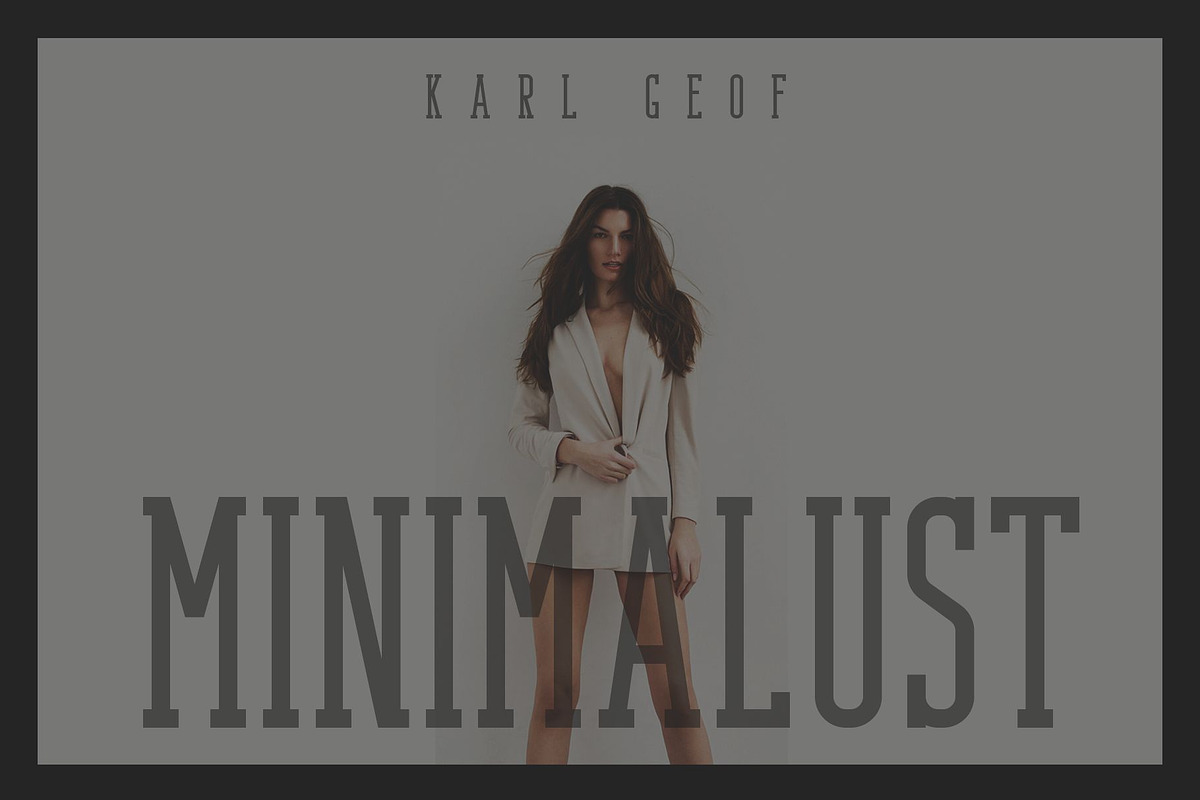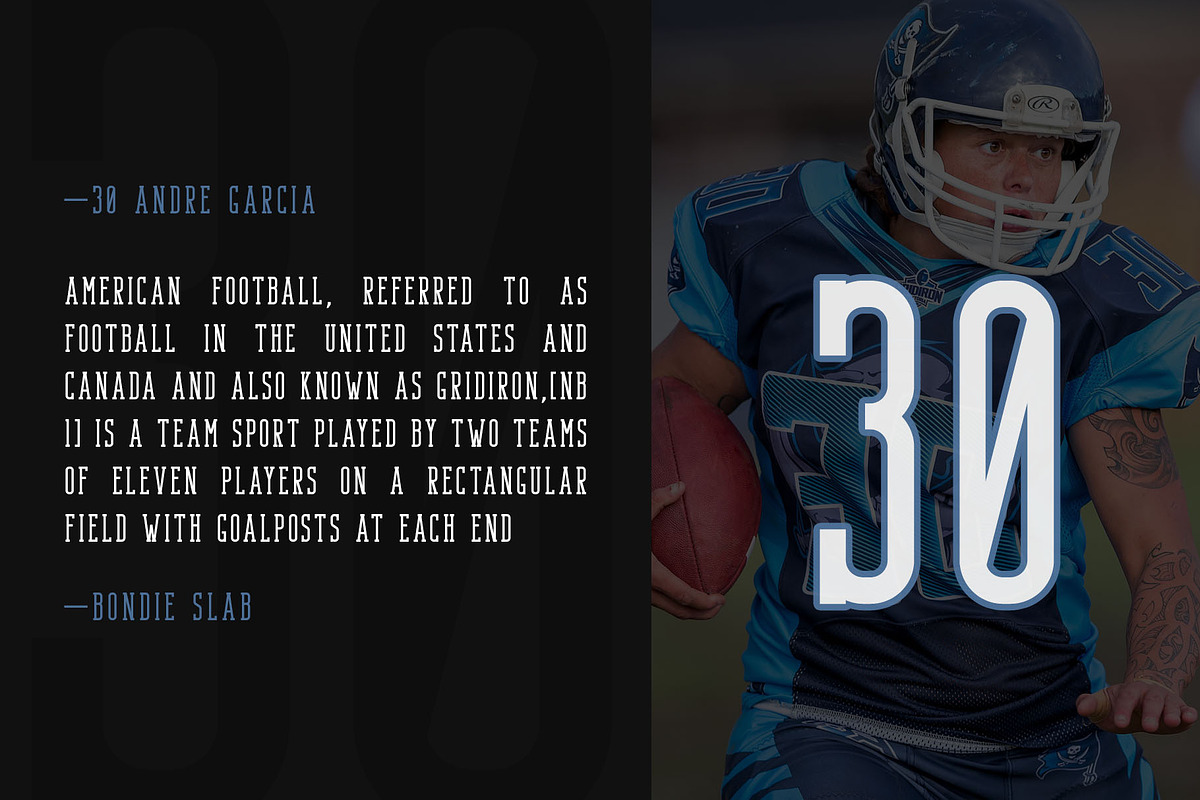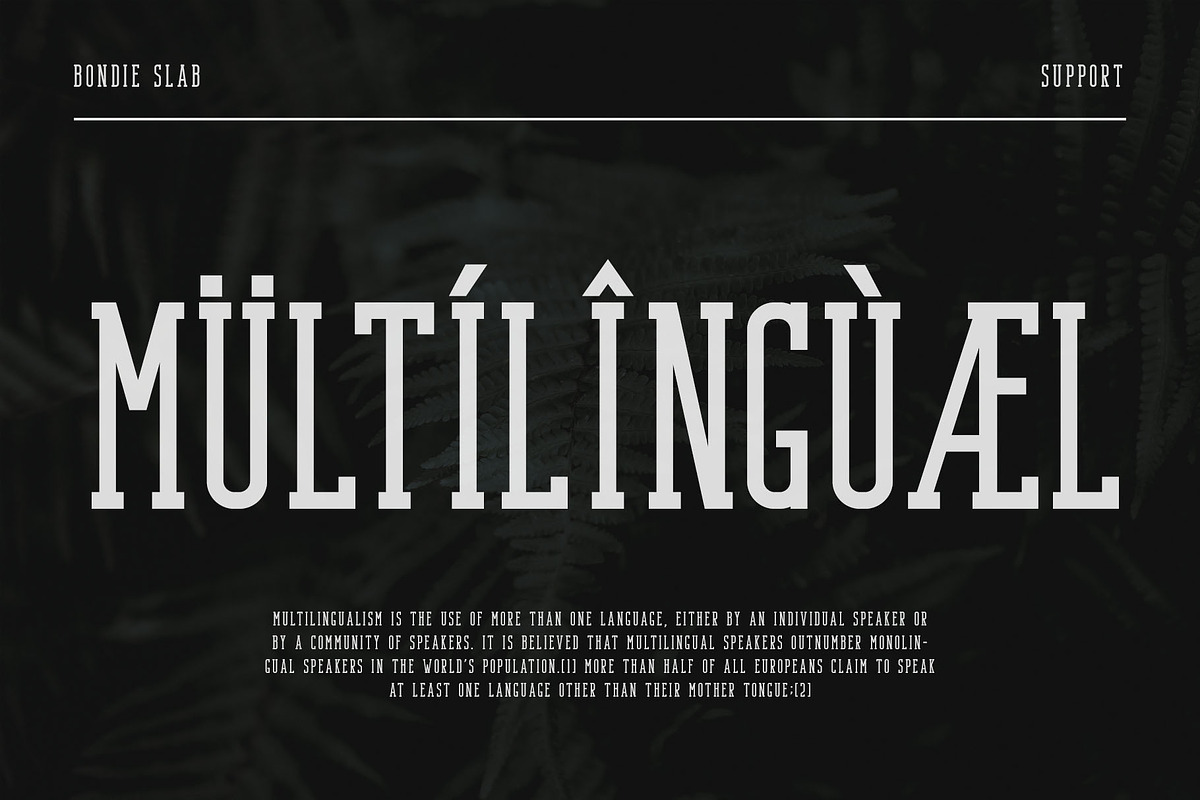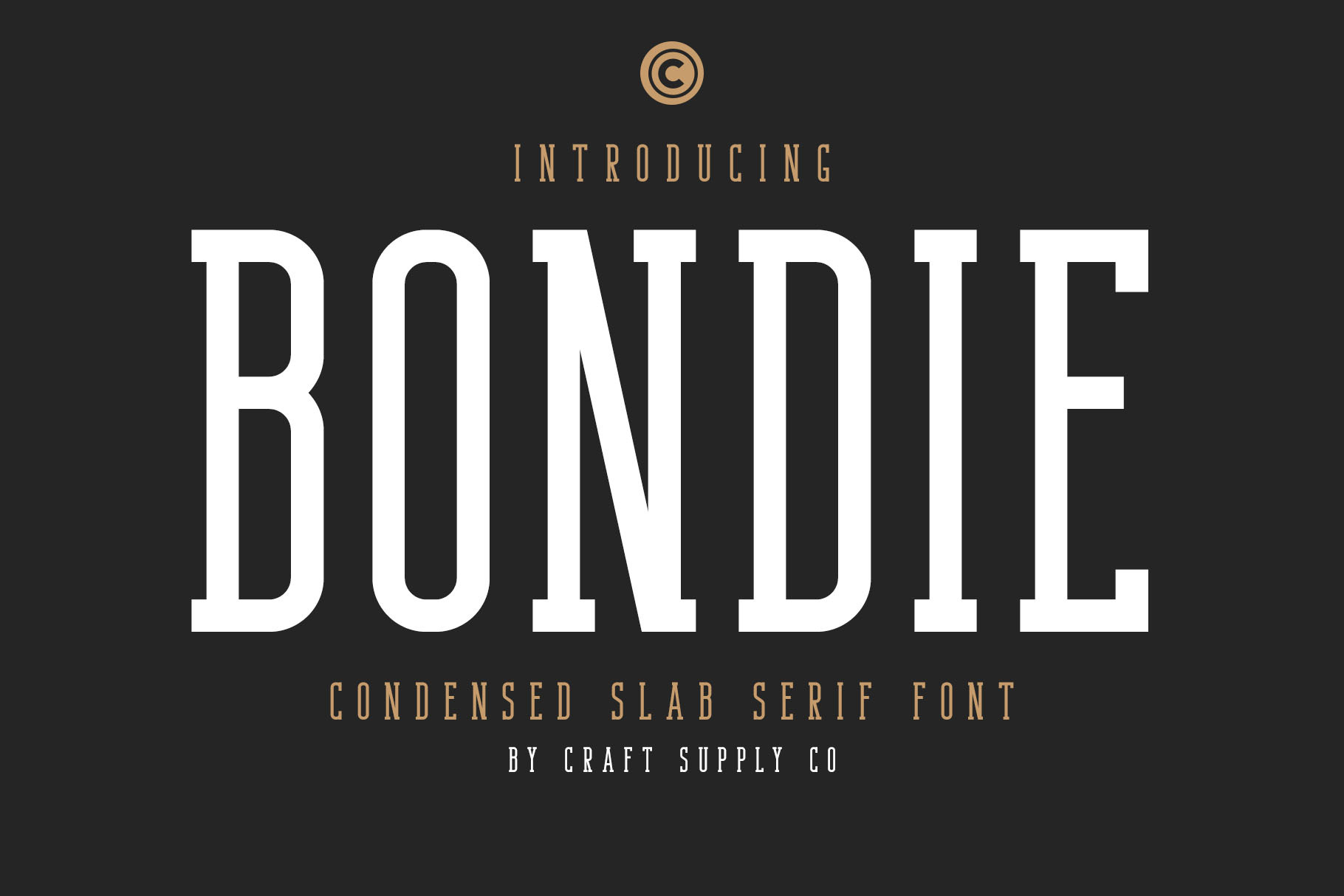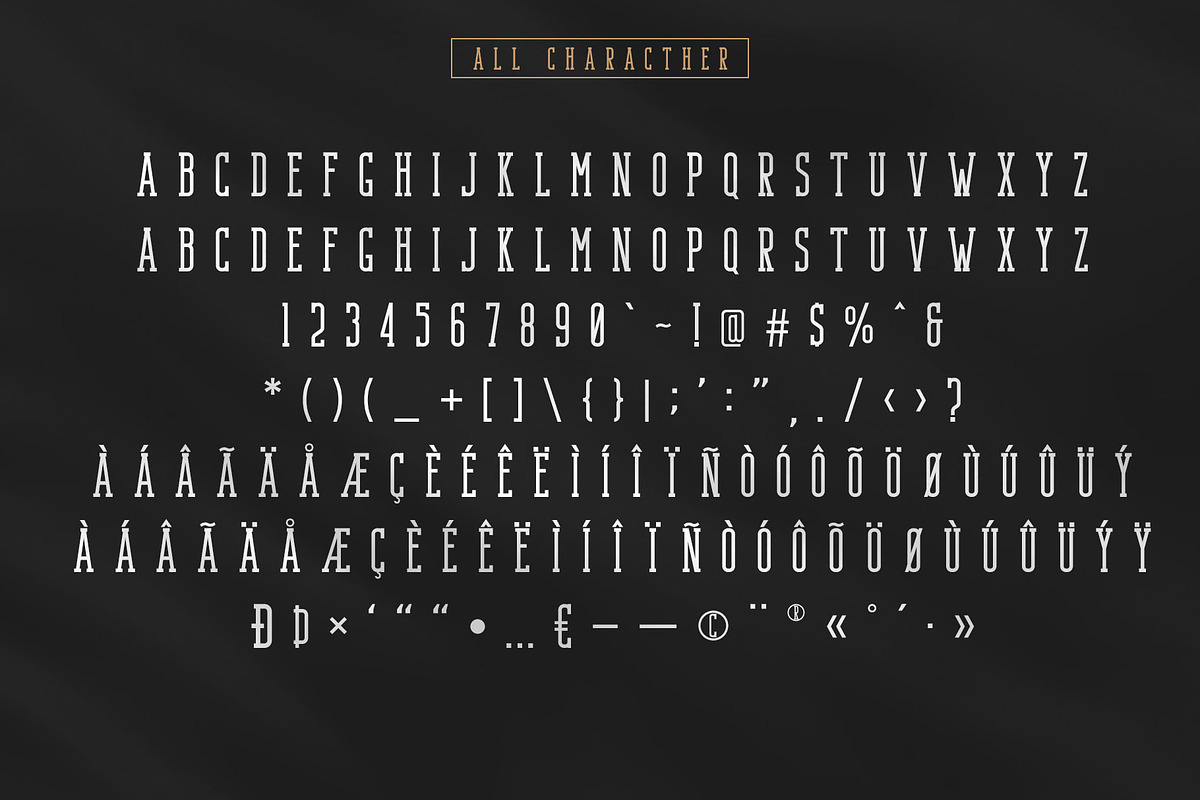
Bondie - Condensed Slab Serif Font
Introducing New Font : Bondie - Condensed Slab Serif Font
Bondie - Condensed Slab Serif Font is an Elegant Condensed - Condensed Slab serif with solid font files. it is based on the compact solid font, by combining a variety of styles. Suitable for Logo, greeting cards, quotes, posters, branding, name card, stationary, design title, blog header, art quote, typography
Bondie - Condensed Slab Serif Font also suitable for art, modern envelope lettering or book design, happening style like handdrawn design or watercolor design theme, craft design, any DIY project, book title, wedding font, pop vintage design, or any purpose to make our art/design project look pretty and trendy.
- Upper Case & Lowercase (All Caps)